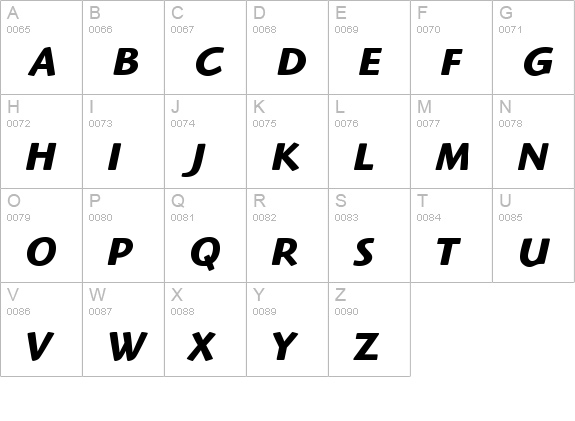
HighlanderEF-BoldItalic is a bold and stylish typeface that exudes confidence and sophistication. With its elegant italicized design, this font is perfect for making a statement in your designs. Whether you're creating eye-catching headlines or adding a touch of luxury to your projects, HighlanderEF-BoldItalic is sure to impress. The best part? This striking font is available for free download at FontsMarket.com. Experience the power and elegance of HighlanderEF-BoldItalic in your designs today and take your projects to the next level.